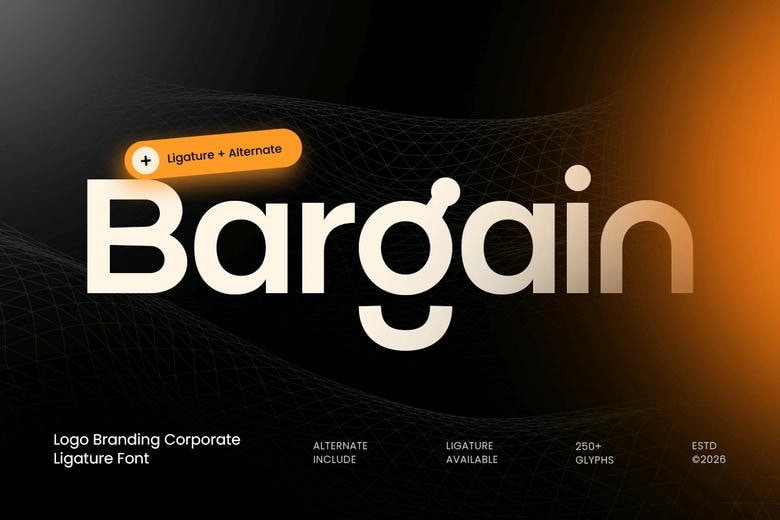
Bargain Font
Bargain Font is a corporate font that is designed as a logo branding font that provides clarity, trust and consistency in professionalism. This typeface was developed with clean structure and balanced proportions that give the impression of a confident business tone that is modern, reliable, and highly brand-ready.
Designed as a corporate communication and identity system, Bargain integrates smoothly with logos, wordmarks, company profiles, presentations, reports, web header, user interface design, signage, brochures and social media content. Its clean shapes make typography readable and smooth, which assists brands to appear well organized and credible on digital and printed layouts.
Be it a startup brand, updating of an established company brand system, or creating marketing materials that are used professionally, Bargain offers a solid typing base that ensures that your message remains crisp, concise and always professional.
Bargain Logo Font